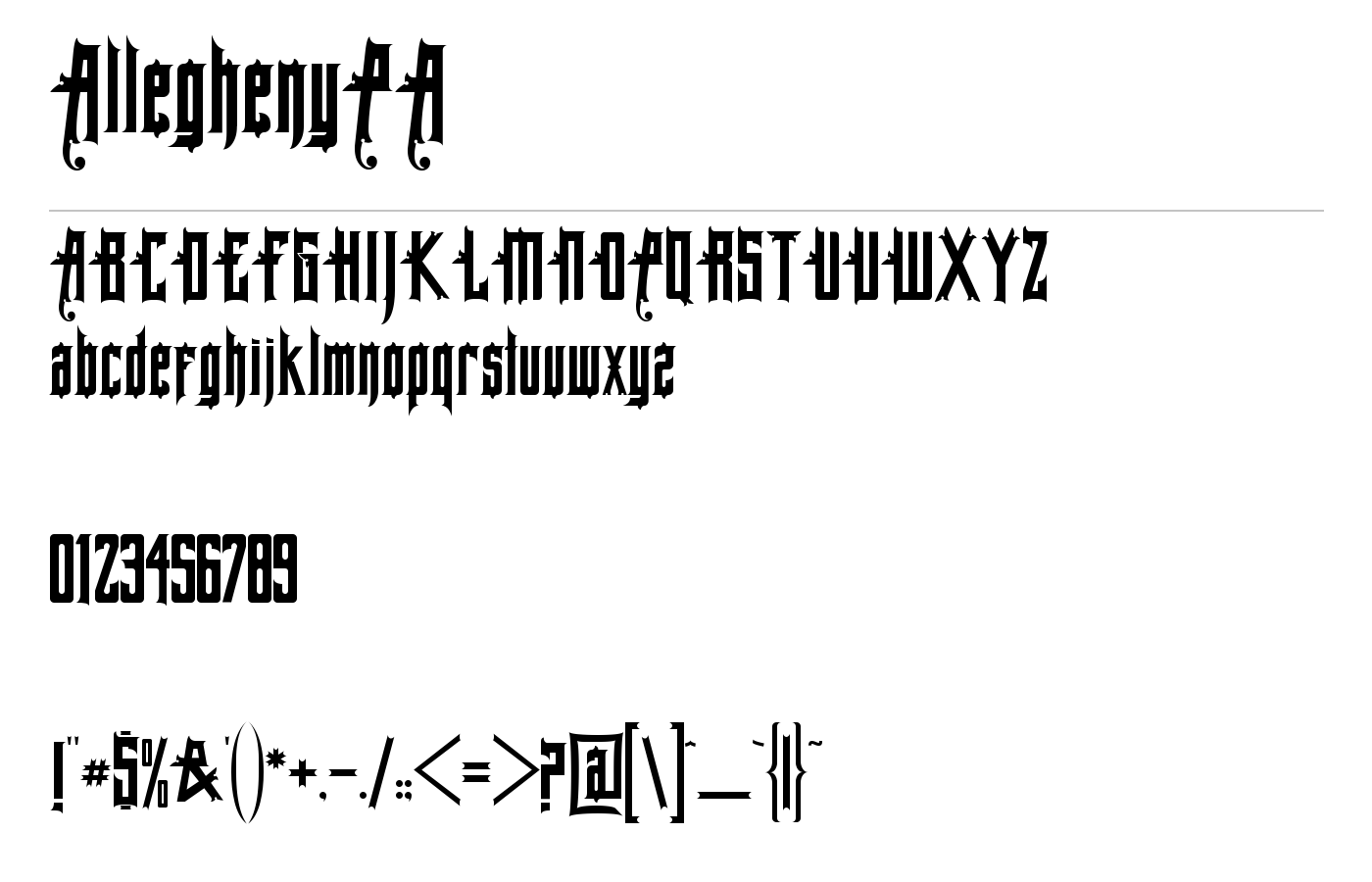
AlleghenyPA is a bold, condensed blackletter-style font with a vintage gothic feel, characterized by its tall, narrow letterforms and sharp, ornamental serifs. Its dramatic contrast between thick strokes and fine details gives it a strong, authoritative presence, making it ideal for headlines, logos, and designs that seek to evoke a historic, medieval, or mysterious atmosphere. This font works well in branding and editorial contexts where a striking, old-world charm is desired.
AlleghenyPA Font
About AlleghenyPA Font